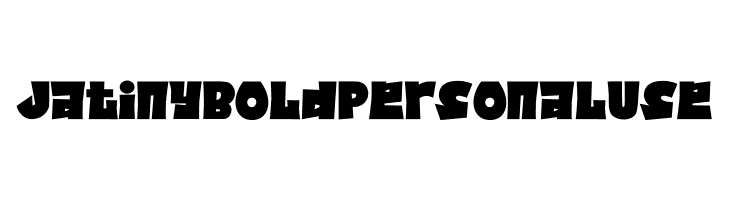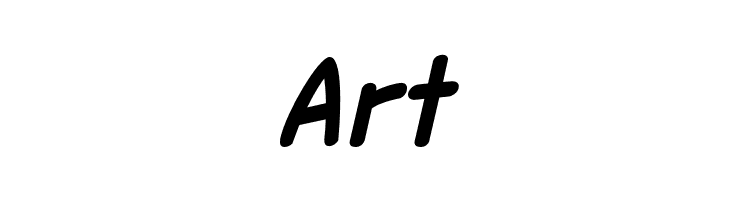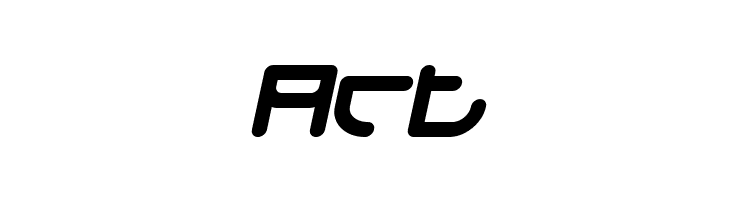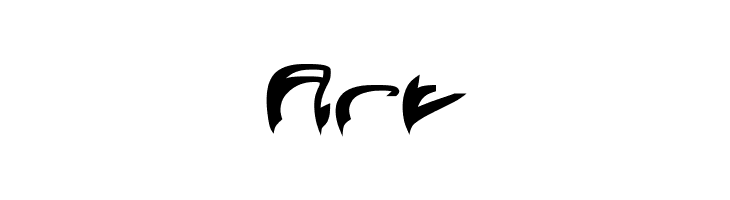
• JAPAN Bold
A bold, geometric font with rounded edges and a futuristic style.
• JAPAN Bold Italic
A bold, italicized font with a futuristic and sleek design.
• Japanola
A bold, angular font with sharp edges and a modern, edgy style.
• Japanola Bold
A bold, angular font with a modern twist on traditional calligraphy.
• Jarble Bold Italic
A bold, italicized font with smooth, rounded edges and a modern, playful style.
• JASON PERSONAL USE Bold
A bold, distressed font with a rugged, grunge-like texture.
• Jatiny Bold Personal Use
A bold, geometric font with sharp angles and thick strokes, ideal for modern designs.
• jaune d'oeuf Bold
• Java Island Bold
A bold, tribal-inspired font with sharp, angular edges and a dynamic style.
• Java Island Bold Italic
A bold, italicized font with sharp angles and a dynamic, energetic style.